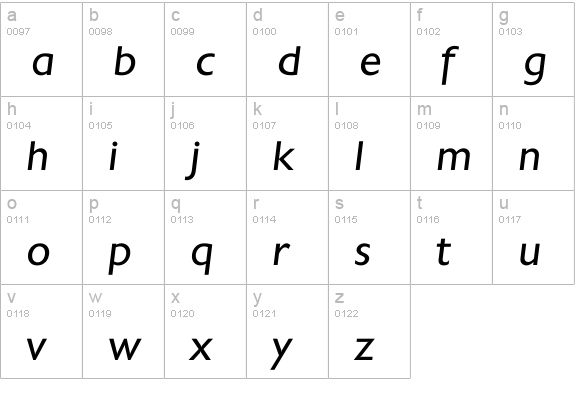
Ichantilly Regular is the standard, neutral variant in the Ichantilly typeface family \xE2\x80\x94 well suited to general body text, paragraphs, and standard typographic work.
Ichantilly Regular is a beautifully crafted font that exudes elegance and sophistication. With its delicate curves and graceful letterforms, this font is perfect for adding a touch of refinement to any project. Whether you're designing a wedding invitation, creating a logo for a high-end brand, or crafting a luxurious magazine layout, Ichantilly Regular is the ideal choice. What makes Ichantilly Regular even more appealing is that it is free! Yes, you read that right. This stunning font is freely available to download at FontsMarket.com. It's a rare find to come across such a high-quality font that doesn't come with a hefty price tag. Now, you can elevate your designs without breaking the bank. Ichantilly Regular is versatile and can be used in a variety of design contexts. Its timeless appeal makes it suitable for both print and digital projects. Whether you're working on a poster, a flyer, a website, or even a social media graphic, Ichantilly Regular will add a touch of sophistication that will captivate your audience. The attention to detail in Ichantilly Regular is truly remarkable. Each stroke is meticulously crafted to create a harmonious balance between elegance and legibility. The font's smooth lines and well-proportioned letterforms make it a joy to work with, ensuring that your designs will look polished and professional. So why wait? Discover the beauty of Ichantilly Regular and elevate your designs to new heights. Download this exquisite font for free at FontsMarket.com and unlock a world of possibilities for your creative projects. Don't miss out on this opportunity to add a touch of elegance and sophistication to your designs without spending a dime.